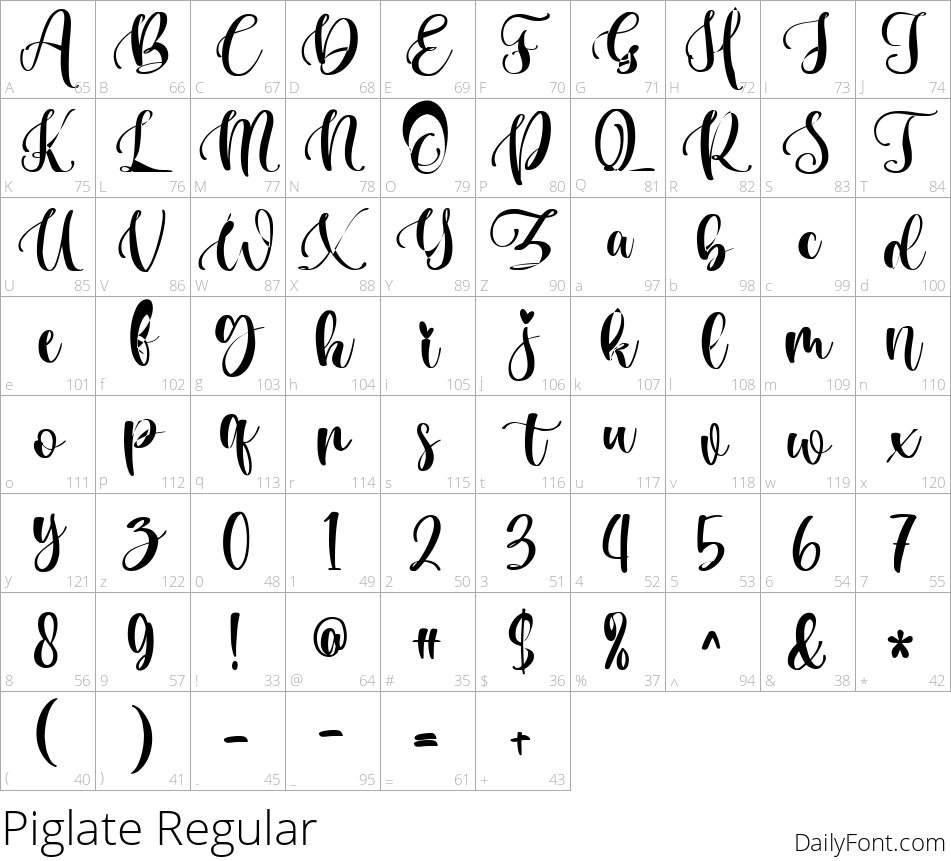
Piglate
Piglate is a beautiful and jolly handwritten font with a unique feel and a stunning impact. It will add a luxury spark to any design project you wish to create. This versatile script brings warmth and personality to branding, logos, headlines, posters, invitations, and product packaging. Its lively letterforms strike a balance between playful charm and refined elegance, helping your message stand out without sacrificing readability. Piglate is ideal for bold titles and expressive captions alike, making it a reliable choice for creative agencies, freelancers, and small businesses seeking a memorable visual identity.
Piglate excels in branding, social media graphics, wedding stationery, menus, and marketing materials that demand attention. Pair it with clean sans-serif or elegant serif fonts to maximize contrast and legibility. The handcrafted appeal works well in luxury campaigns, artisanal products, and boutique experiences, delivering a premium feel at a glance. Whether you're designing a logo, a poster, or a campaign banner, Piglate offers character, charm, and a modern handwritten vibe that resonates with audiences across platforms and devices.